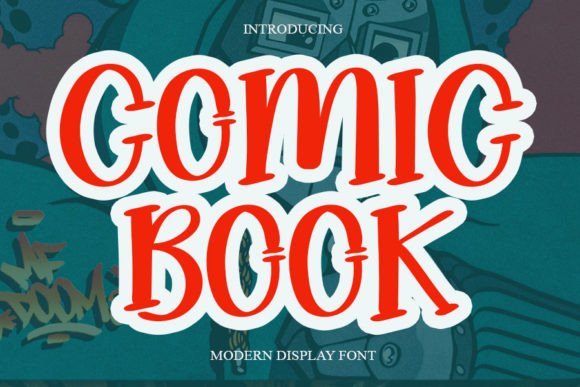
Embark on a typographic adventure with Comic Book Font, the ultimate display font that injects a dash of playfulness and individuality into your creative endeavors. Step into a world where your headlines and logotype projects are transformed into captivating works of art that demand attention.
Comic Book Font is a whimsical and spirited creation from the talented minds at Inermedia STUDIO, a renowned font foundry dedicated to crafting typographic masterpieces. This font is not just a collection of letters; it's a gateway to a realm of imagination and boundless creativity.
With its bold and confident strokes, Comic Book Font exudes an aura of strength and dynamism. Its unique letterforms, reminiscent of the golden age of comic books, add a touch of nostalgia and retro charm to your designs. Whether you're creating posters, flyers, logos, or any other visual masterpiece, Comic Book Font is your trusty companion, ready to elevate your work to new heights.
This font is more than just a visual delight; it's a storytelling tool that breathes life into your words. Imagine crafting a resume that stands out from the crowd, a resume that speaks volumes about your personality and creative flair. With Comic Book Font, your resume becomes a captivating narrative, a visual symphony that showcases your skills and aspirations.
In the world of design, first impressions matter. Make a bold statement with Comic Book Font, a font that captivates audiences and leaves a lasting impact. Whether you're a seasoned designer or just starting your creative journey, this font is your secret weapon to create awe-inspiring designs that resonate with your audience.
So, let your imagination soar and embark on a typographic adventure with Comic Book Font. Transform your creative projects into masterpieces that ignite conversations and leave an indelible mark on the minds of those who behold them. Download Comic Book Font today and unlock the limitless possibilities of visual storytelling.